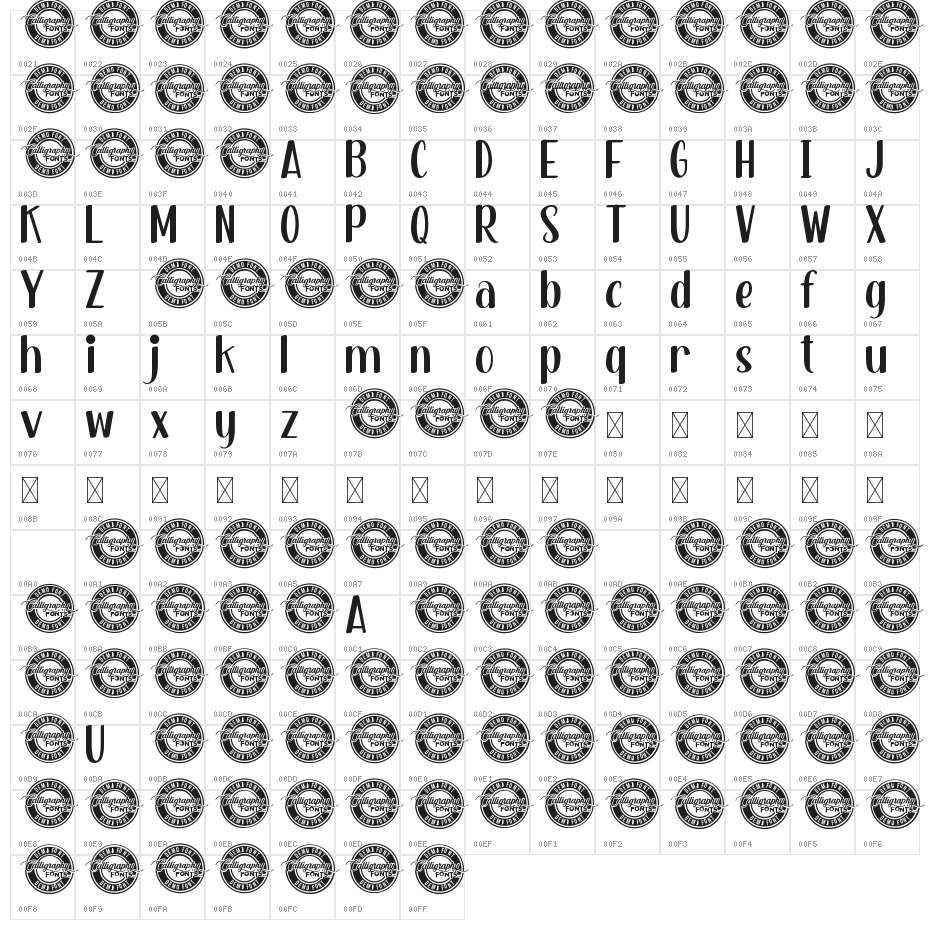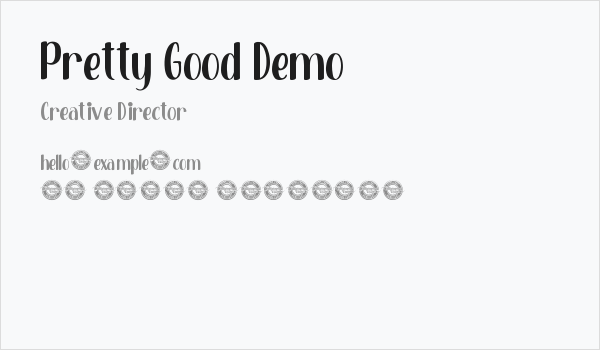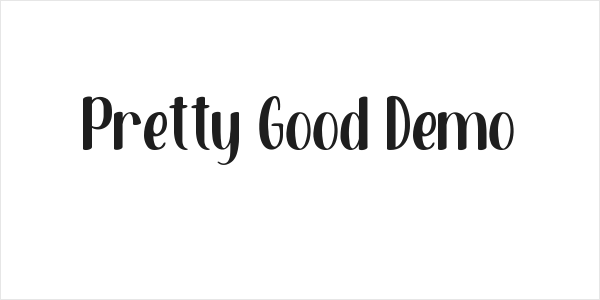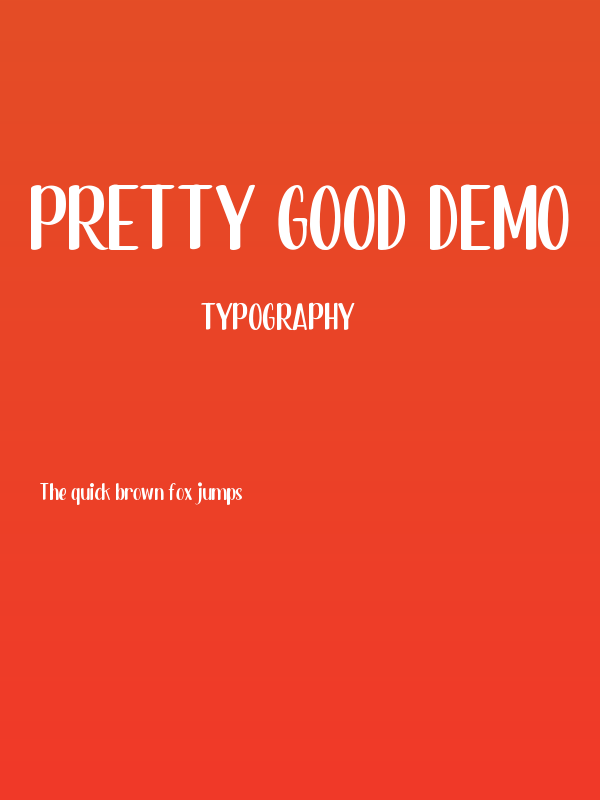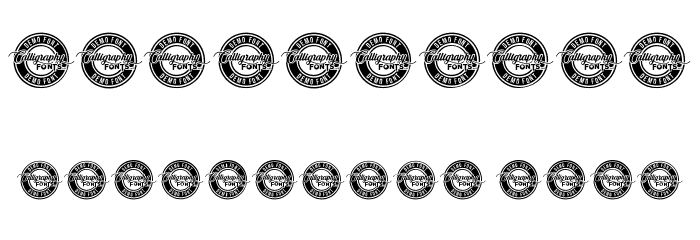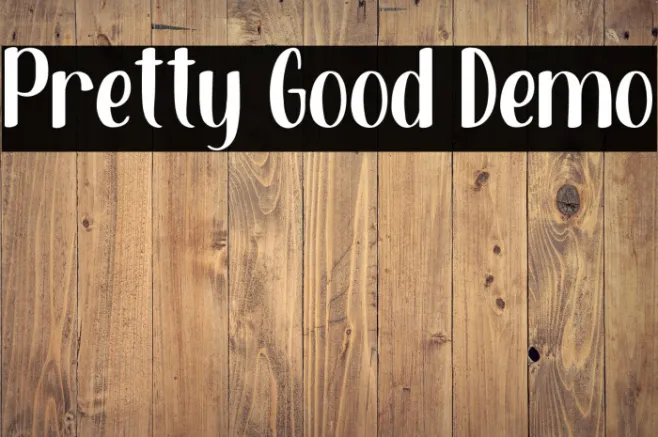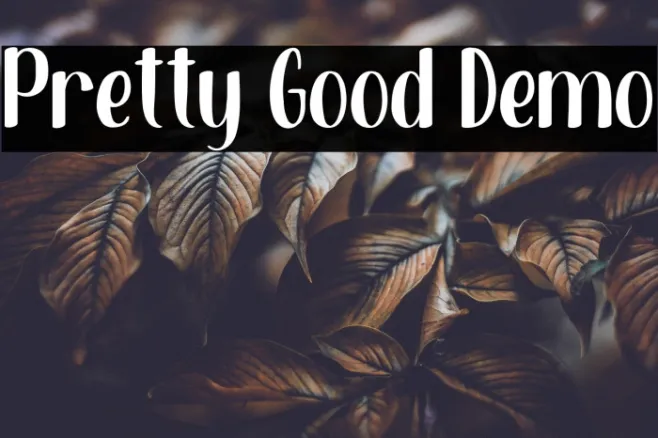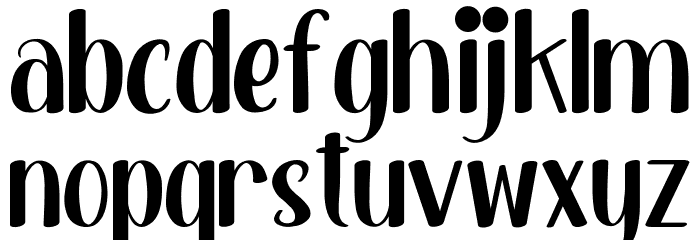
Pretty Good Demo Font
Pretty Good Demo Description
This font features a playful and modern style with a unique blend of bold and smooth curves. The uppercase letters are tall and slightly condensed, giving a strong presence, while the lowercase letters maintain a friendly and approachable feel with their rounded edges. The font exhibits a consistent stroke width, contributing to a clean and cohesive appearance. It is versatile and can be used in various design contexts, from branding to digital media. The characters are well-spaced, ensuring readability and visual appeal.